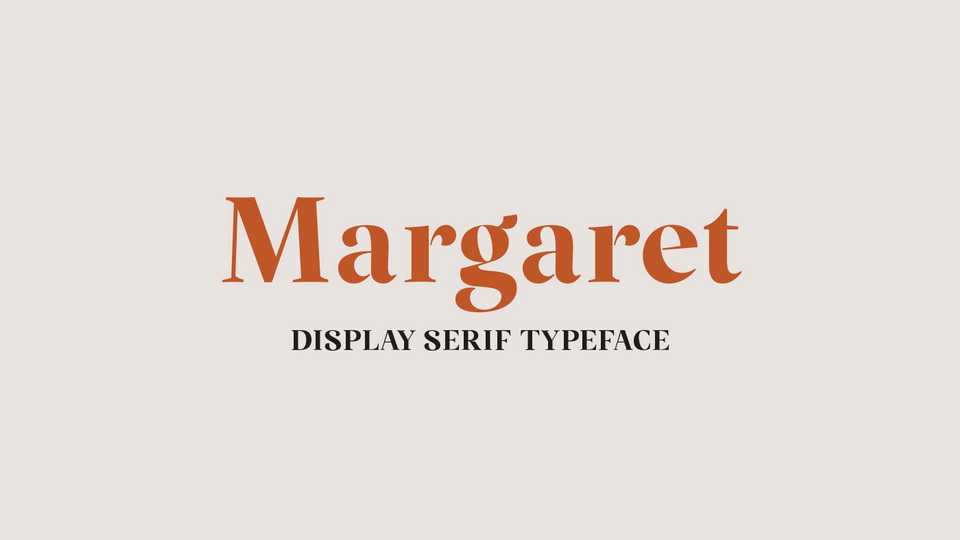
Download Margaret font, a beautiful and warm display serif typeface that give any text a smooth, calming motion. High contrast style of the Margaret making it perfect for titling, headlines, logotype, and branding projects.
Designer: Kacper Janusiak